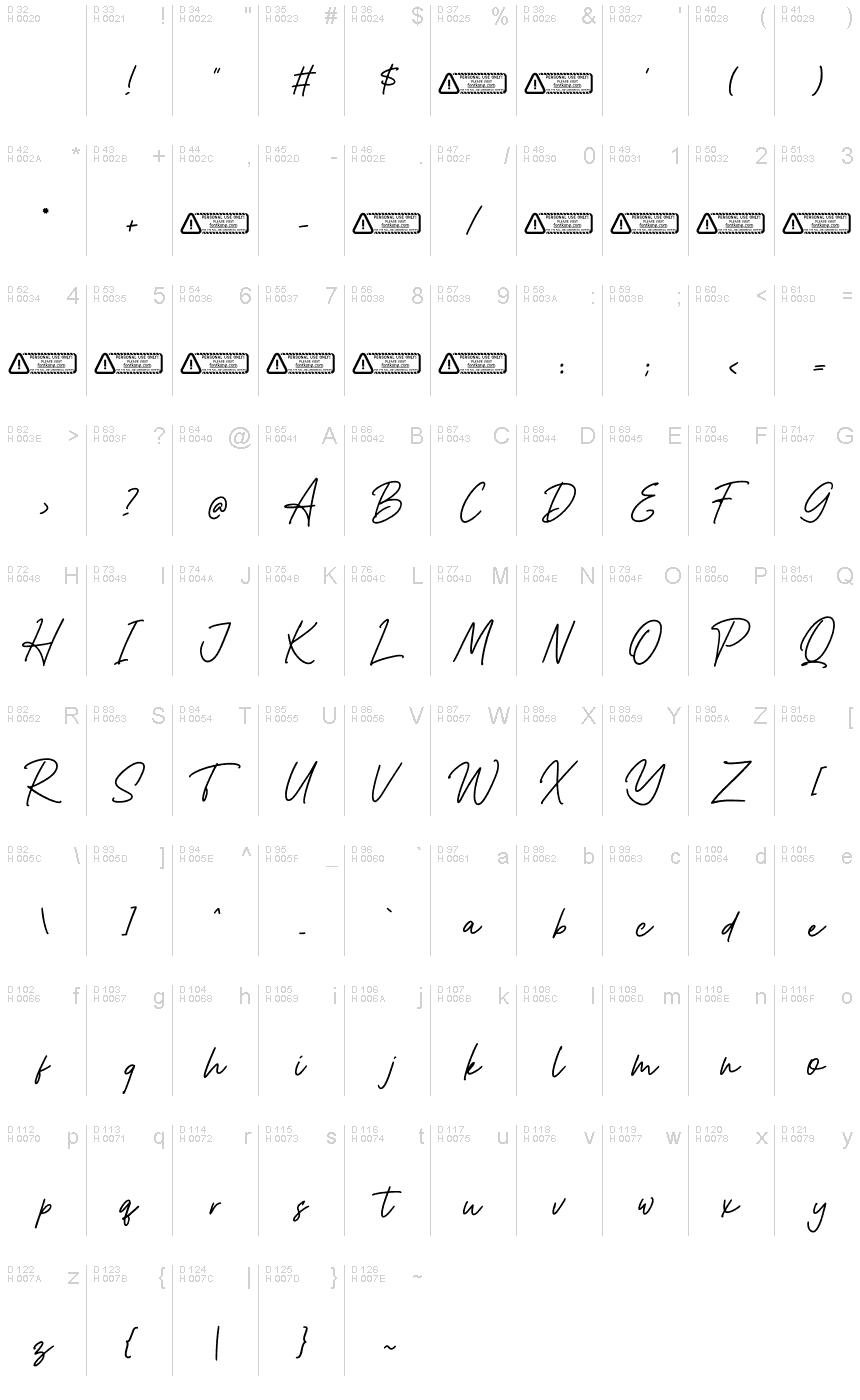
Allvienta
Allvienta, designed by Kong Font, brings a touch of elegance to your projects with its monoline handwritten style. Its semi-light weight adds a delicate charm, making it perfect for various creative ventures. Enhance your wedding invitations with Allvienta's graceful strokes or add a personal touch to your blog headers. This versatile font complements both digital and print designs effortlessly. Craft captivating logos or elevate your branding materials with its refined aesthetic. Allvienta is the ideal choice for those seeking a sophisticated yet approachable font that leaves a lasting impression.